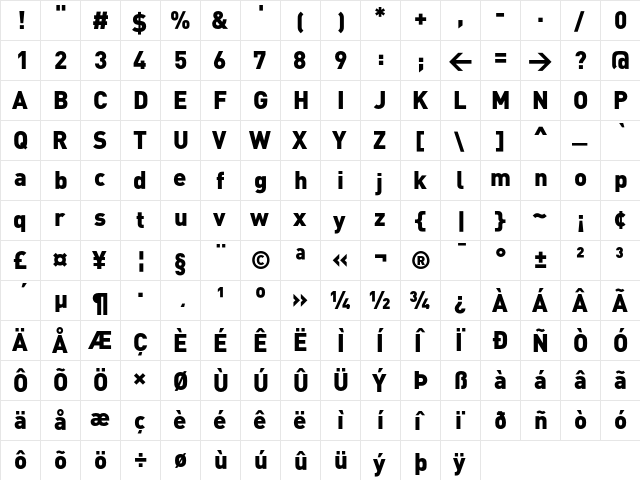
DIN Black Font Preview
DIN Black
DIN Black Font Details
Design Context for DIN Typeface
DIN offers clean, dependable letterforms without strong stylistic allegiance, making it a practical choice for designers who need flexibility.
Pro Tip: Pair DIN with a font of contrasting weight or personality to build a more expressive typographic hierarchy.